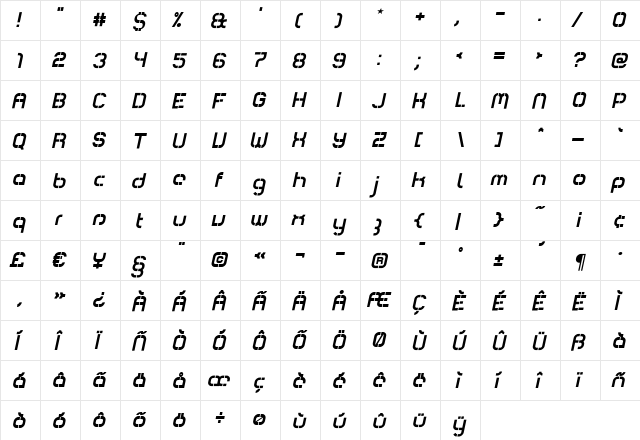
Comsat Italic
Design Context for Comsat Typeface
Comsat takes a measured approach to typography — its balanced proportions and neutral character make it a reliable workhorse for both digital and print work. The slanted form adds forward momentum and visual energy.
Pro Tip: Try Comsat for annotation and caption copy alongside an upright companion — the contrast in angle creates a dynamic but ordered typographic system.